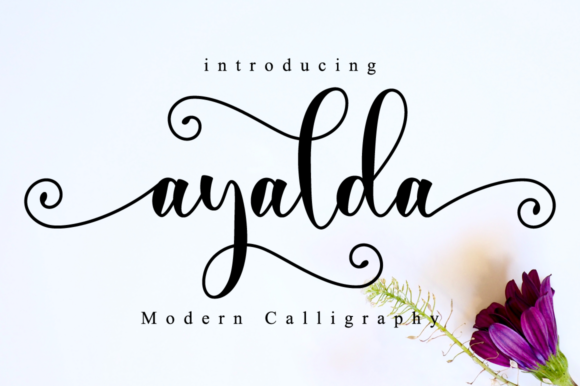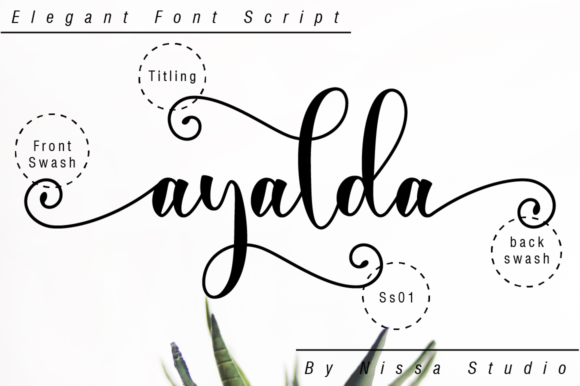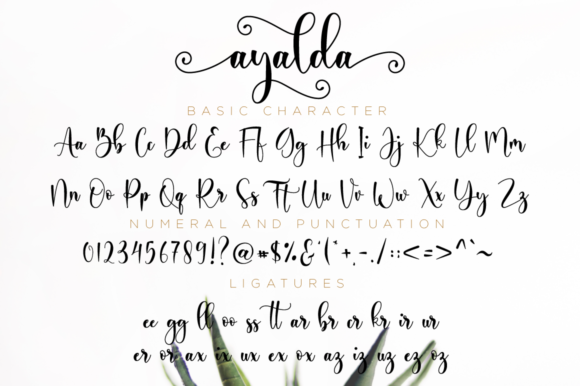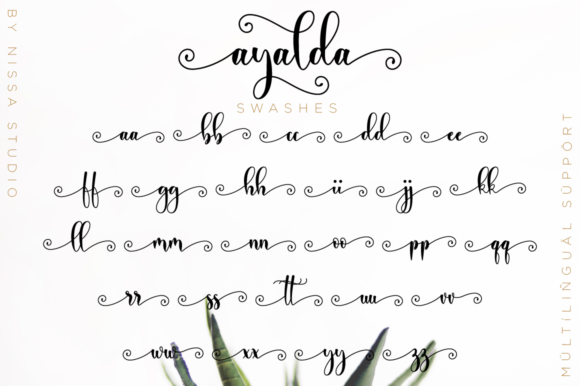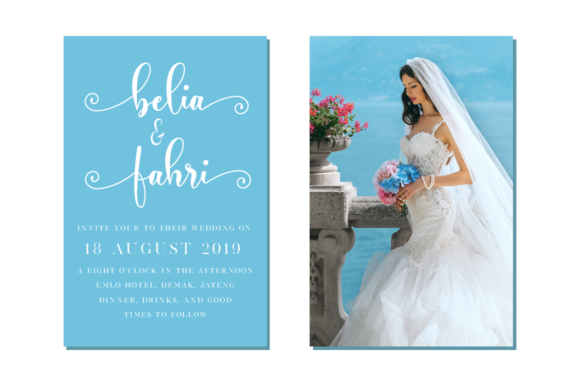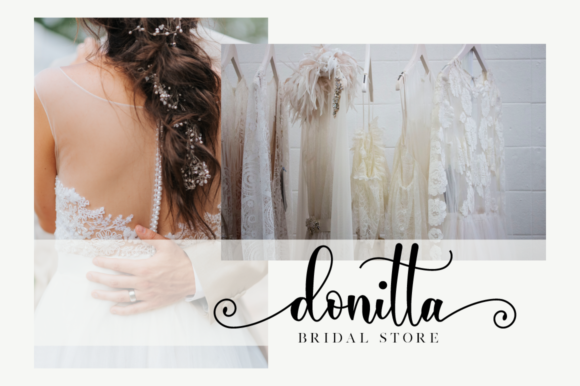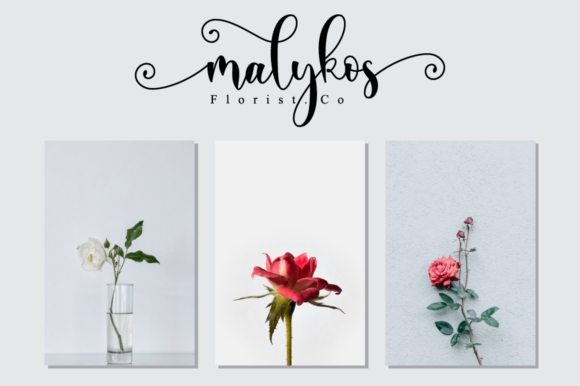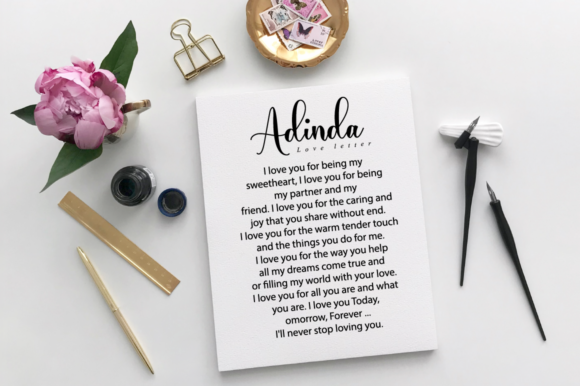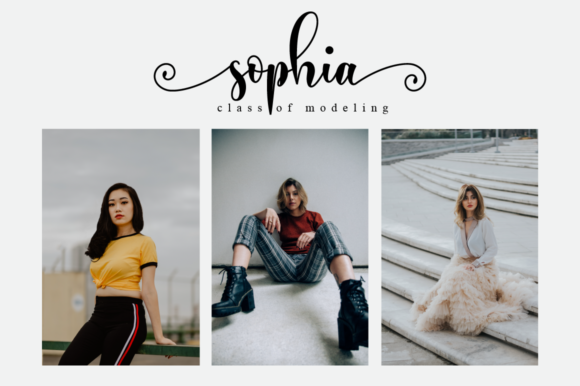
Ayalda Font
Ayalda is a classy and elegant handwritten font with beautiful swashes. Get inspired by its unique look, and turn any design idea into a true standout!